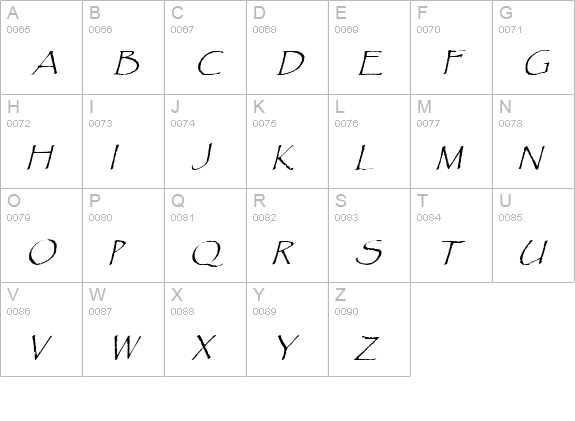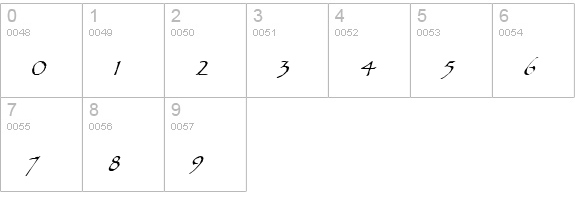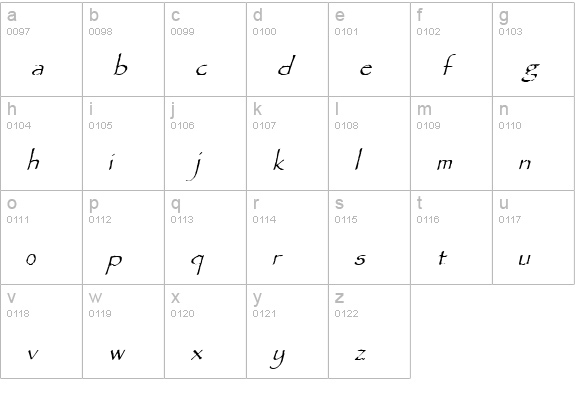
Fitzroy Italic Font Details
Fitzroy Italic is a distinctive, italic variant in the Fitzroy typeface family \xE2\x80\x94 well suited to design and typography projects.
Fitzroy Italic font is a stylish and elegant typeface that exudes sophistication and charm. Its sleek, flowing curves and subtle slant create a sense of movement and grace, making it perfect for adding a touch of class to any design project. The delicate serifs and intricate detailing of Fitzroy Italic add a touch of refinement, making it a versatile choice for both headings and body text. What sets Fitzroy Italic font apart is not just its beauty, but also its accessibility. This exquisite font is available for free download at FontsMarket.com, allowing designers and creatives to easily incorporate its timeless style into their work without any cost. Whether you're working on a branding project, a website design, or a print layout, Fitzroy Italic font is sure to elevate your work with its effortless sophistication and timeless appeal. Download your free copy today and see the difference it can make in your designs.